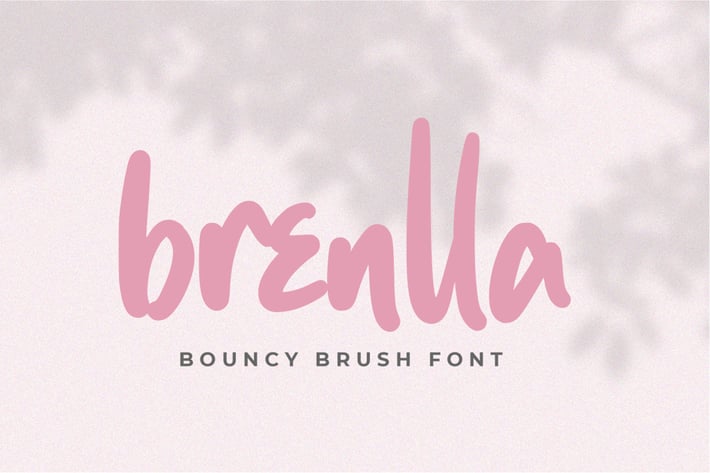
Brenlla Brush Font
Brenlla is a sweet and friendly handwritten font. Its natural and unique style makes it incredibly fitting to a large pool of designs. The only limit is your imagination!
* Fonts include multilingual support for; ä ö ü Ä Ö Ü ß ¿ ¡